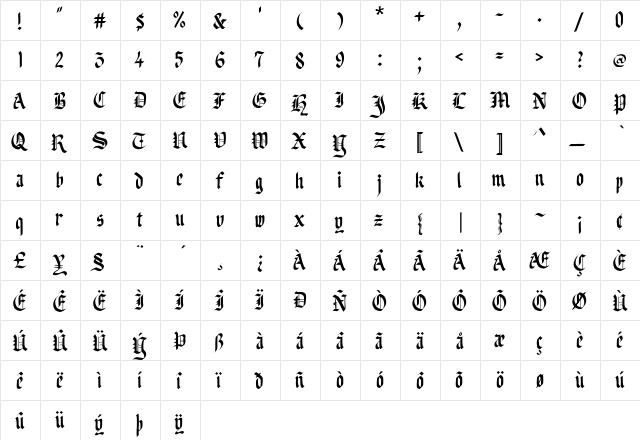
Blacklet Normal Bold
| Foundry | Daniel Lyons |
| Designer | Dan P. Lyons |
Design Context for Blacklet Typeface
Blacklet is a composed and adaptable typeface that performs quietly and consistently across a wide range of design contexts. Its bold stroke weight gives it real presence on the page.